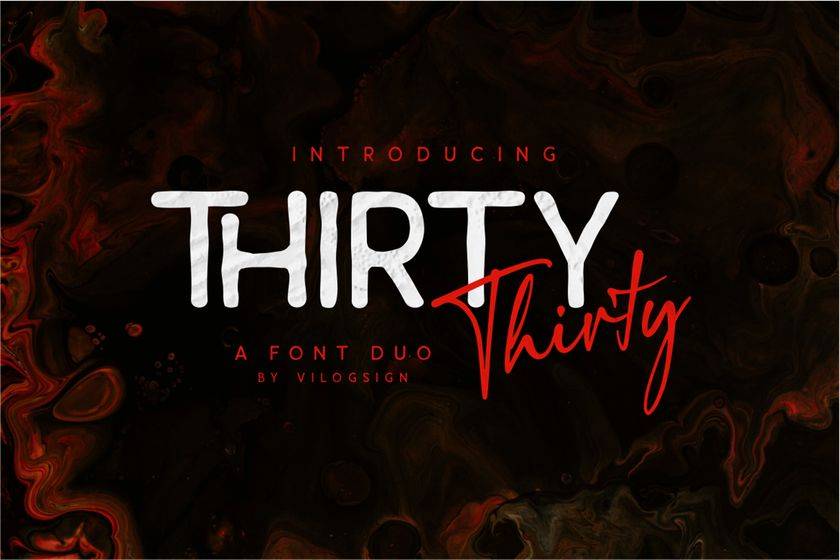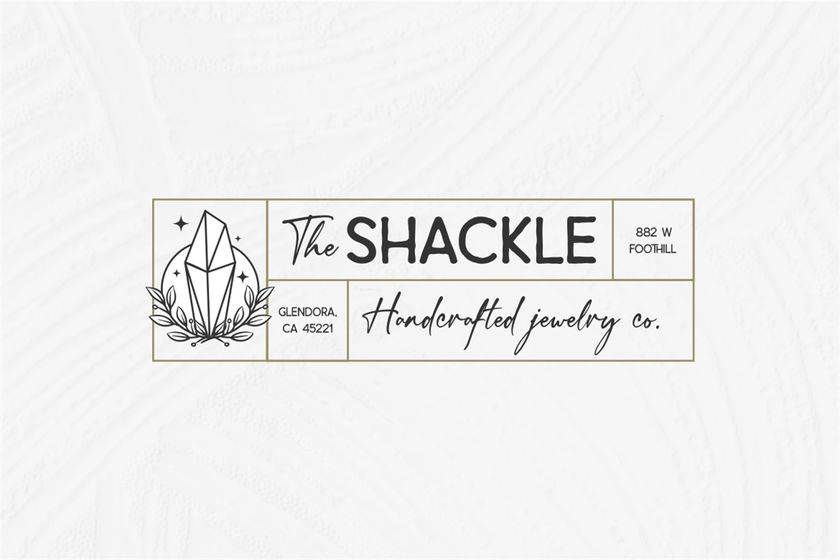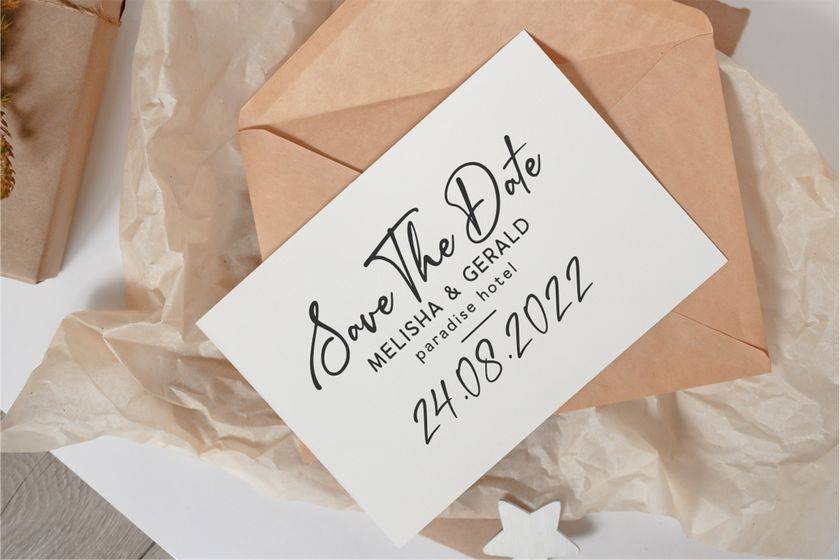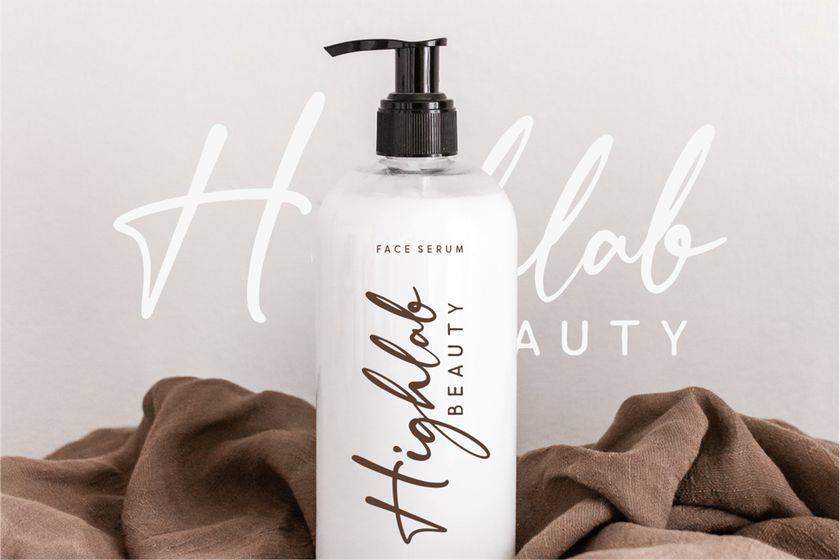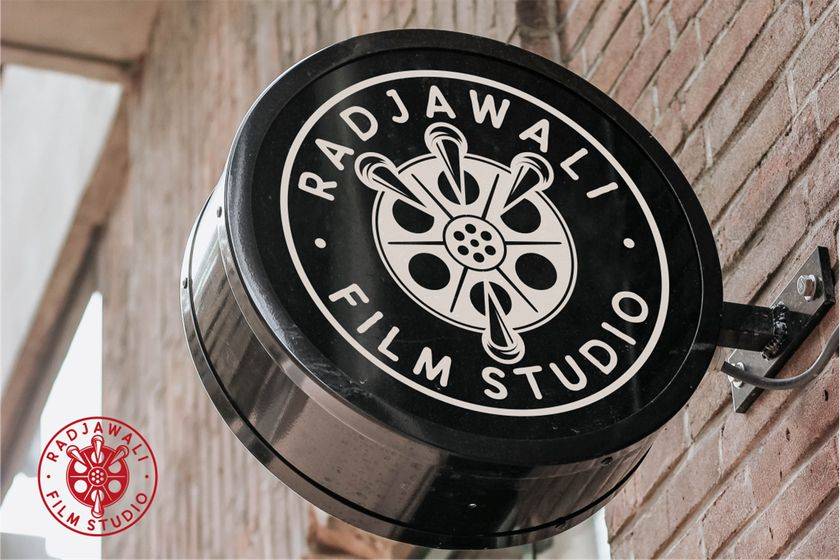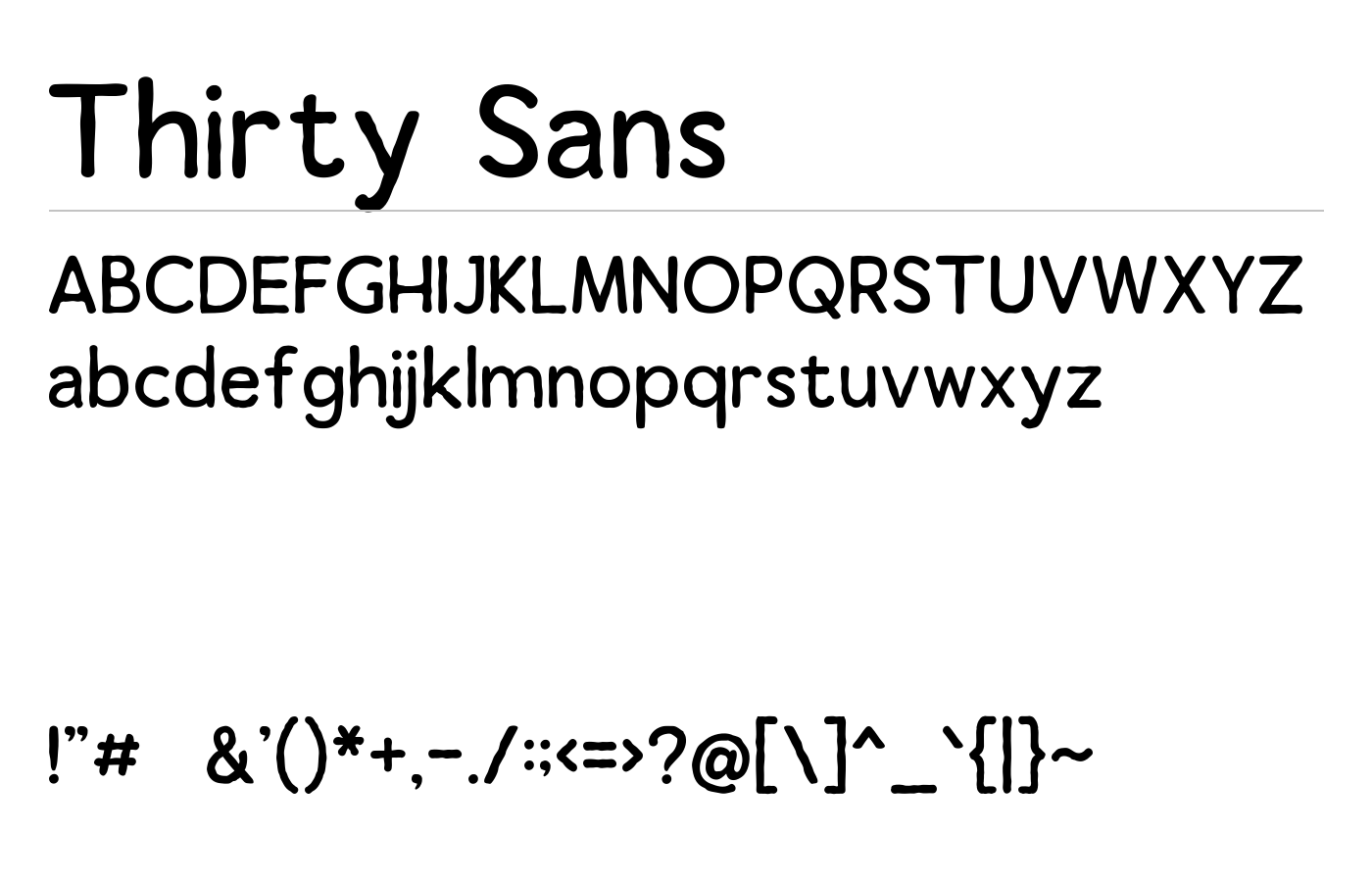
Thirty Sans is a charming, hand-drawn sans serif font with a casual and friendly feel. Its slightly irregular stroke shapes and moderate x-height make it approachable and perfect for playful, informal designs, such as children's books, creative projects, or casual branding. This font works best in headlines or short text where warmth and personality are desired.
Thirty Font
About Thirty Font
| Font family | Thirty Font |
| Designer | Vilogsign |